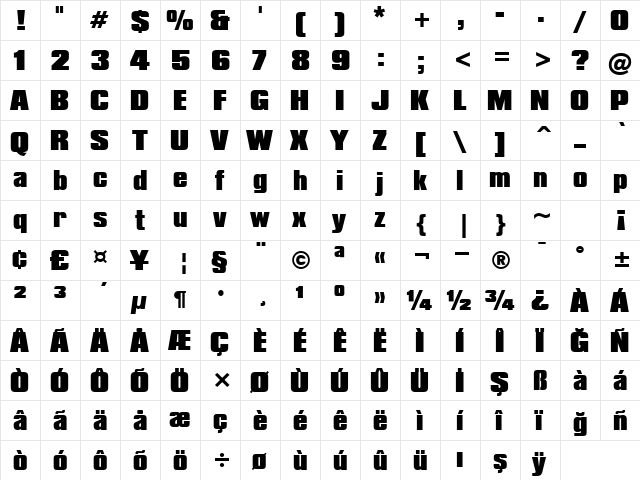
00362 Regular
Design Context for 00362 Typeface
00362 offers clean, dependable letterforms without strong stylistic allegiance, making it a practical choice for designers who need flexibility.